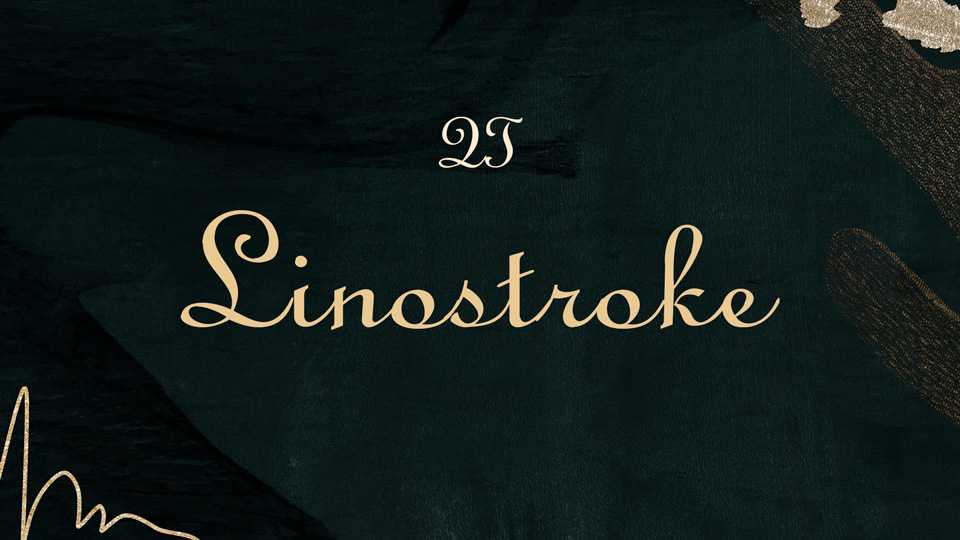
Download Linostroke font, an elegant upright French script based on thetypeface designed in 1905 by Morris Fuller Benton. Linostroke displays the strong stroke contrasts of broken letter and the flowing quality of handwriting fonts of the 17th and 18th centuries.